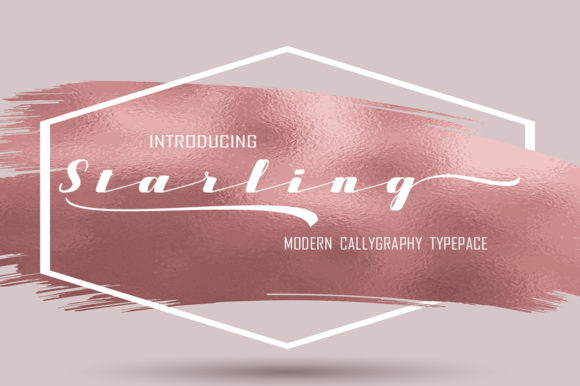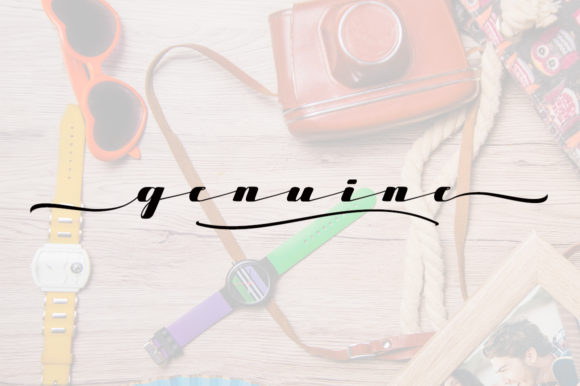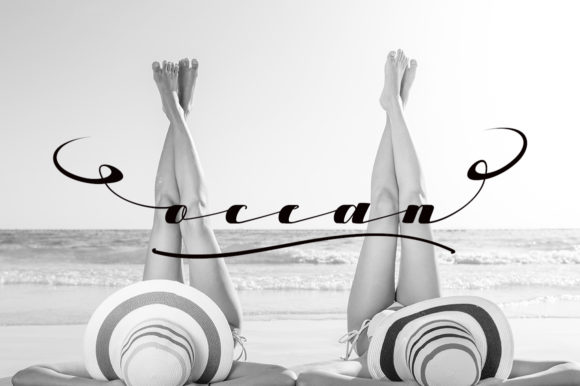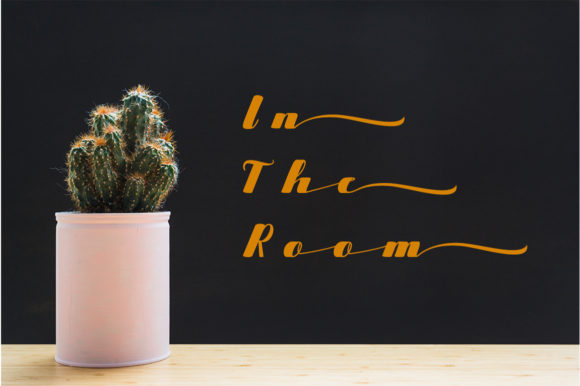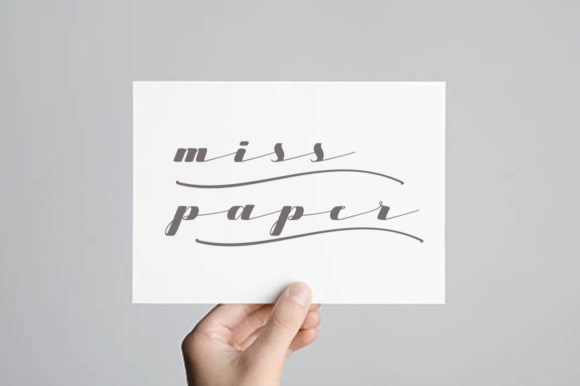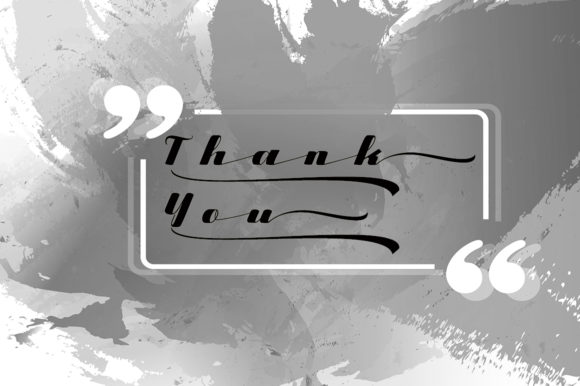
Starling Font
About Starling Font
Introducing “The Starling,” a modern calligraphy font crafted with unique forms of calligraphy, designed to bring a stylish and distinctive touch to your projects. This font is more than just a typeface; it’s a design asset created with modernity and creativity, making it suitable for a variety of projects that demand a contemporary and unique calligraphic style.
“The Starling” stands out with its modern calligraphy, featuring unique forms that add a touch of individuality to your text. Whether you’re working on headings, logos, wedding invitations, t-shirts, letterheads, signage, labels, or any project that requires a modern calligraphic flair, this font delivers with its distinct and innovative character.
Its unique forms and modern calligraphy style ensure that your text stands out with creativity and sophistication. Logos designed with this font convey a sense of modern elegance, creating a memorable and stylish brand identity. Wedding invitations, signage, labels, and other designs crafted with “The Starling” showcase a contemporary and artistic vibe, making them visually appealing and versatile.
The versatility of “The Starling” makes it a great choice for a variety of creative applications, providing a modern calligraphy font that adds a touch of uniqueness to any design context.
In summary, “The Starling” is more than just a font; it’s a design companion that brings a modern calligraphy style with unique forms to your projects. Embrace its creativity for headings, logos, wedding invitations, and more, and let “The Starling” elevate your designs with a touch of contemporary flair.